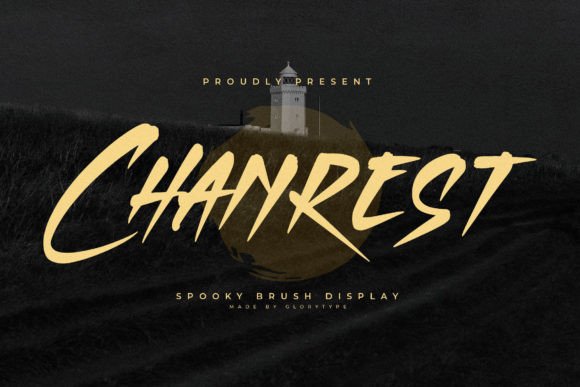
Introducing Chanrest Font: The Ultimate Brush Handwritten Font for Creative Projects
Are you tired of using the same old fonts for your creative projects? Do you want to add a touch of personality and uniqueness to your designs? Look no further than Chanrest Font, a cool and trendy brush handwritten font that’s sure to elevate your font library.
What is Chanrest Font?
Chanrest Font is a beautifully crafted brush handwritten font that’s perfect for a wide range of creative projects. Its unique and trendy design makes it an excellent choice for designers, crafters, and anyone looking to add a personal touch to their work. Whether you’re creating a logo, brochure, social media graphic, or website, Chanrest Font is sure to make your design stand out.
Key Features of Chanrest Font
So, what makes Chanrest Font so special? Here are just a few of its key features:
- Unique and trendy design: Chanrest Font has a one-of-a-kind brush handwritten design that’s sure to grab attention.
- Versatile: This font can be used for a wide range of creative projects, from logos and brochures to social media graphics and websites.
- Easily readable: Despite its unique design, Chanrest Font is easy to read, making it perfect for body text and headlines.
- High-quality: Chanrest Font is a high-quality font that’s been carefully crafted to ensure it looks great in any design.
Why Choose Chanrest Font?
There are many fonts to choose from, but Chanrest Font stands out from the crowd. Here are just a few reasons why:
- Adds personality to your designs: Chanrest Font has a unique and trendy design that’s sure to add personality to your designs.
- Elevates your font library: With Chanrest Font, you’ll have access to a high-quality font that can be used for a wide range of creative projects.
- Perfect for creative projects: Whether you’re a designer, crafter, or simply someone who loves to create, Chanrest Font is perfect for any creative project.
How to Use Chanrest Font
Using Chanrest Font is easy. Here are just a few ways you can incorporate it into your creative projects:
- Logos and branding: Use Chanrest Font to create a unique and memorable logo that stands out from the crowd.
- Social media graphics: Add a personal touch to your social media graphics with Chanrest Font.
- Websites: Use Chanrest Font to add a touch of personality to your website’s design.
- Print materials: Chanrest Font is perfect for print materials, such as brochures, flyers, and posters.
Tips for Getting the Most Out of Chanrest Font
Here are just a few tips for getting the most out of Chanrest Font:
- Experiment with different colors: Chanrest Font looks great in a wide range of colors, so don’t be afraid to experiment.
- Use it with other fonts: Chanrest Font pairs well with other fonts, so try using it with a complementary font to create visual interest.
- Pay attention to spacing: Make sure to pay attention to spacing when using Chanrest Font to ensure it looks great in your design.
In conclusion, Chanrest Font is a cool and trendy brush handwritten font that’s perfect for creative projects. Its unique and trendy design makes it an excellent choice for designers, crafters, and anyone looking to add a personal touch to their work. With its versatility, readability, and high-quality design, Chanrest Font is sure to elevate your font library and take your creative projects to the next level.